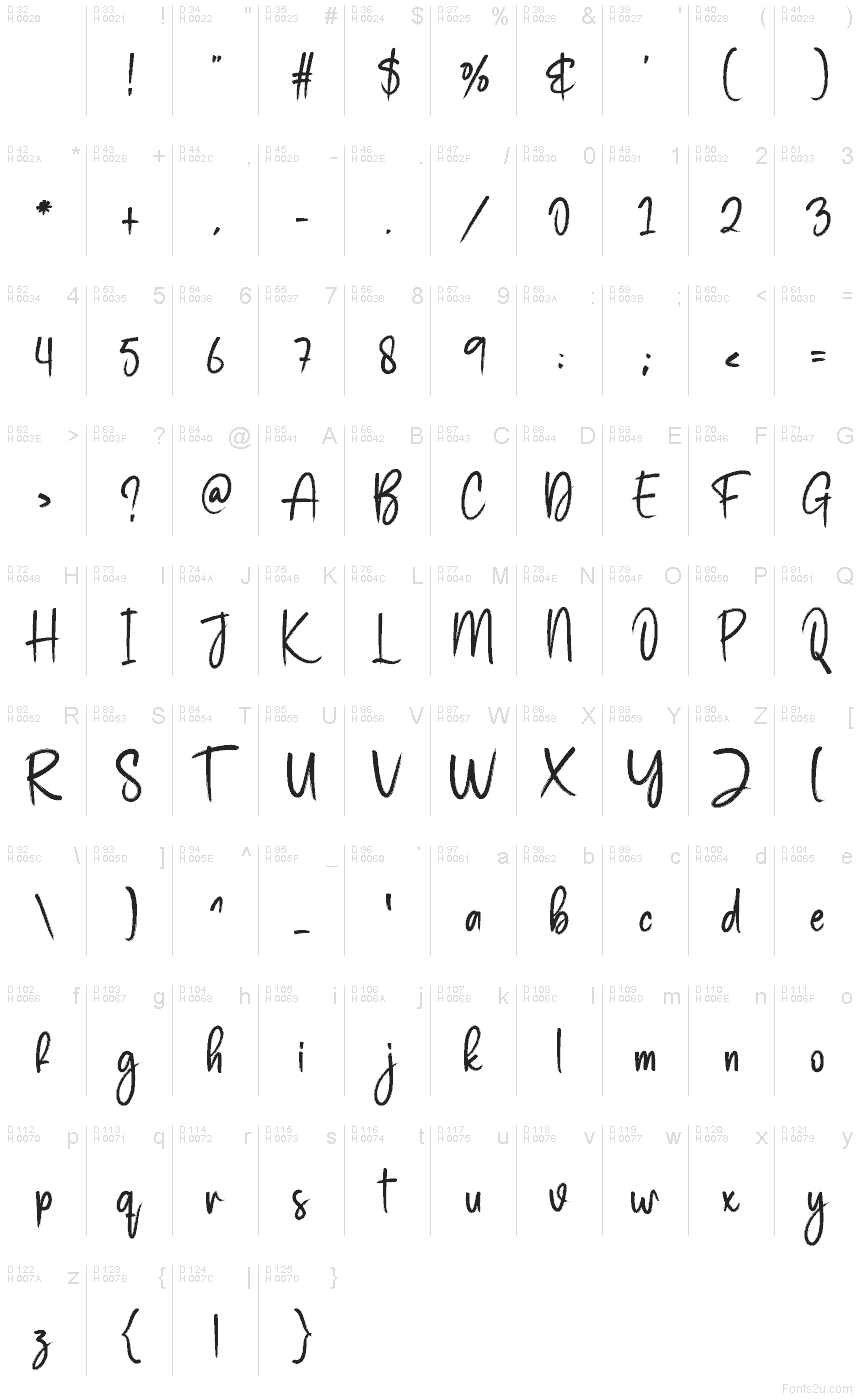
Christmas Starlight
Christmas Starlight by Scratchones is a handwritten font that exudes the warmth and joy of the holiday season with its semi-light weight and flowing letters. The delicate yet confident strokes of this typeface suggest a personal touch, echoing the timeless tradition of handcrafted Christmas cards and heartfelt messages.
Its aesthetic appeal lies in the balance between casual elegance and festive flair, making it an ideal choice for designs that require a personal, handmade feel. From greeting cards to holiday invitations, or even branding for seasonal products, Christmas Starlight has a versatility that can enhance any creative project.
With its charming irregularities and natural look, this font captures the spirit of a starlit winter night and translates it into text form. Whether on screen or in print, Christmas Starlight promises to sprinkle a little holiday magic onto any canvas it graces.